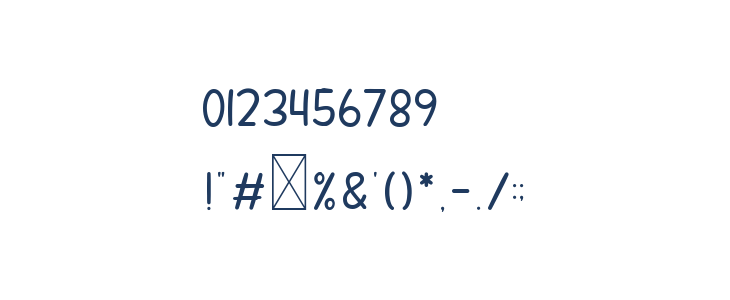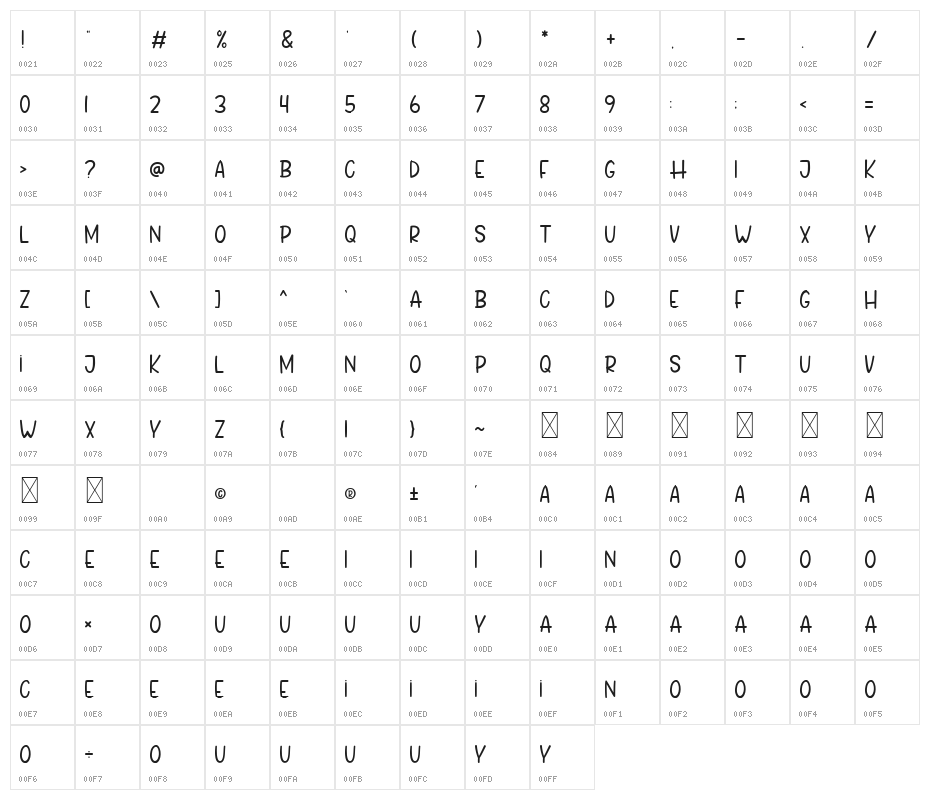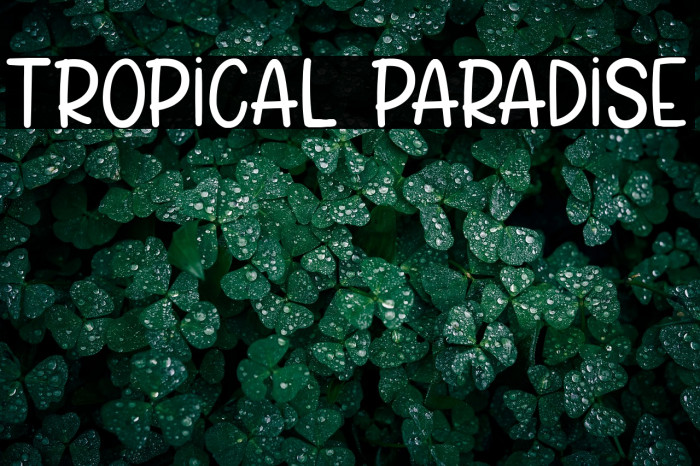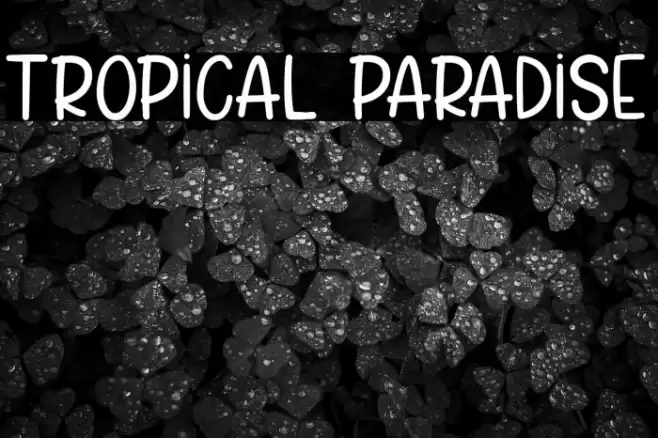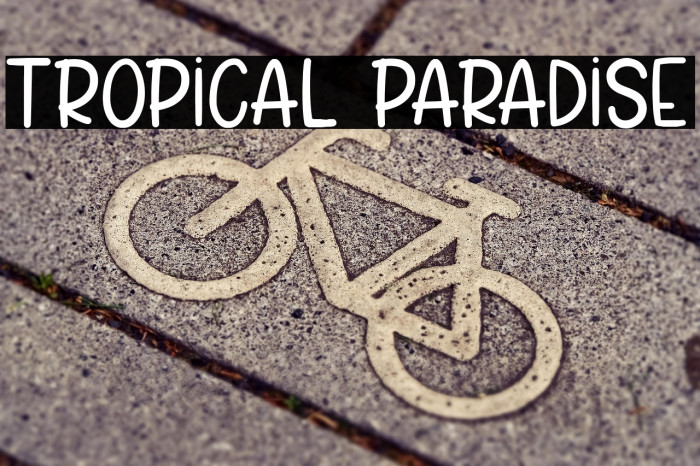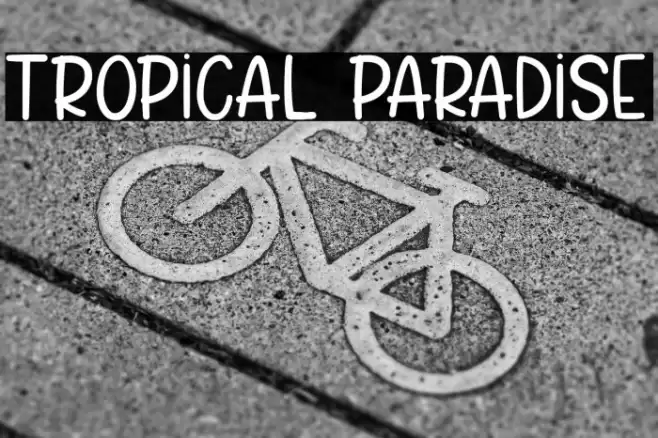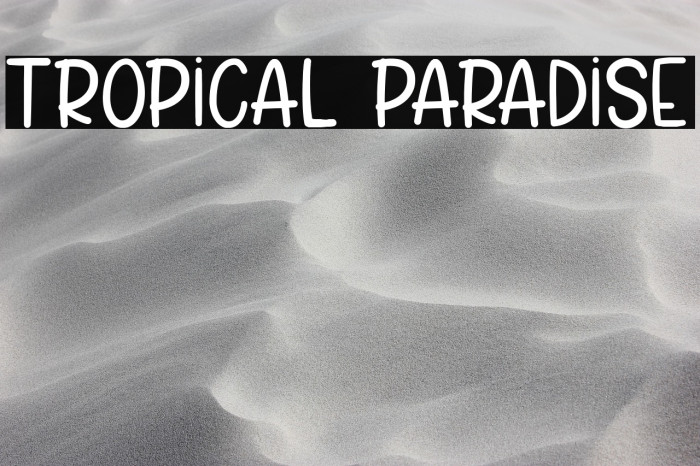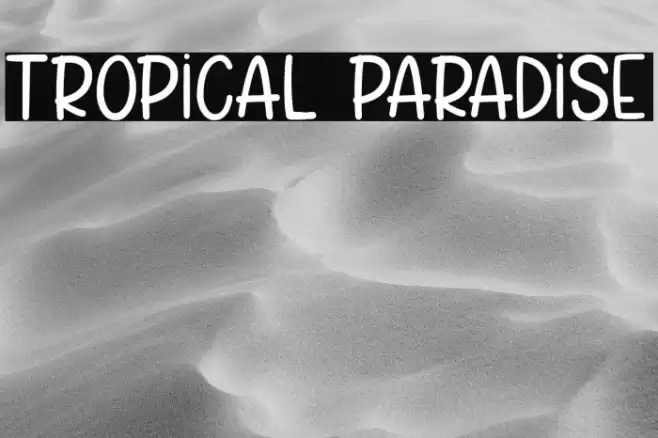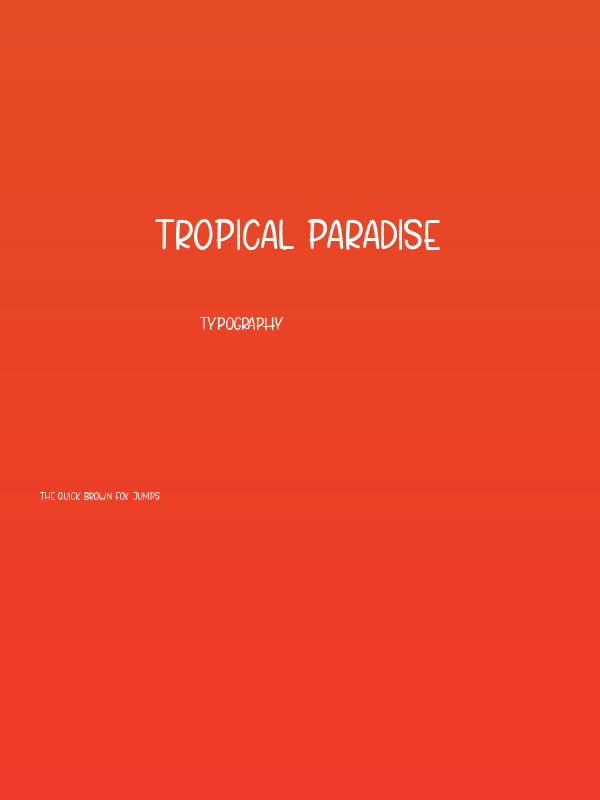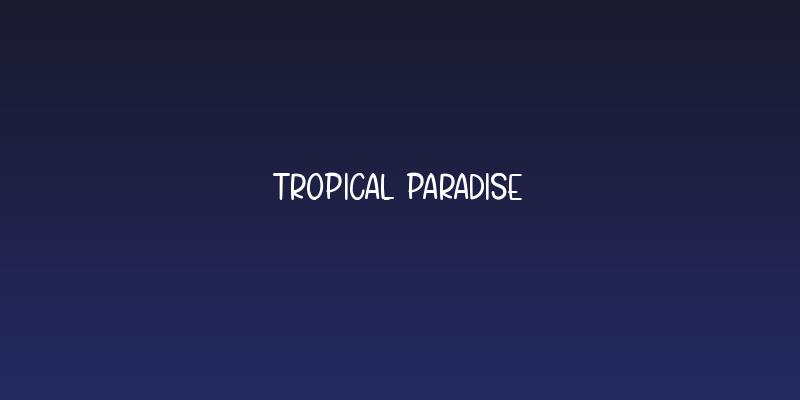
Tropical Paradise Font
Tropical Paradise Description
This font exudes a playful and casual vibe, characterized by its handwritten style. The letters are rounded and slightly irregular, giving it a friendly and approachable appearance. The strokes are consistent in weight, providing a uniform look across all characters. This font includes both uppercase and lowercase letters, numbers, and a variety of special characters, making it versatile for different uses. Its informal style makes it suitable for creative projects that require a personal touch.
| Use Case | Headlines, Logos, Informal text |
| Proposed Projects | Ideal for greeting cards, children's books, casual branding, and social media graphics. |